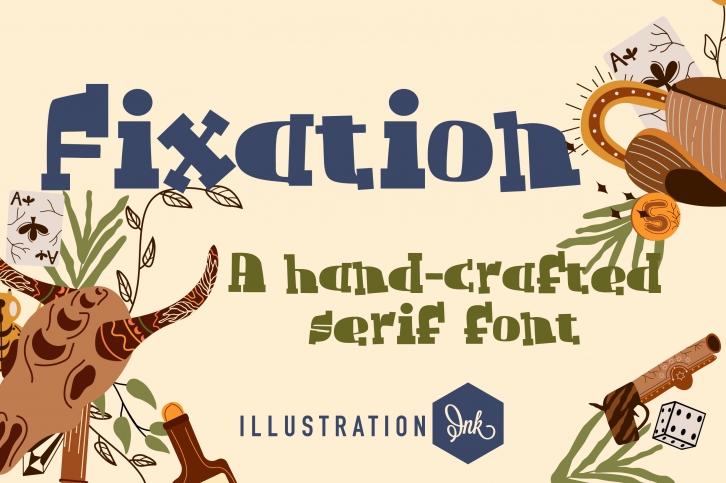
Fixation is a true masterpiece, combining boldness and elegance in a unique and eye-catching way. Its intricate details and artistic flair give it a sense of grandeur and sophistication, making it perfect for use in headings, titles, and other attention-grabbing design elements. With its striking beauty, it’s sure to make any project stand out.